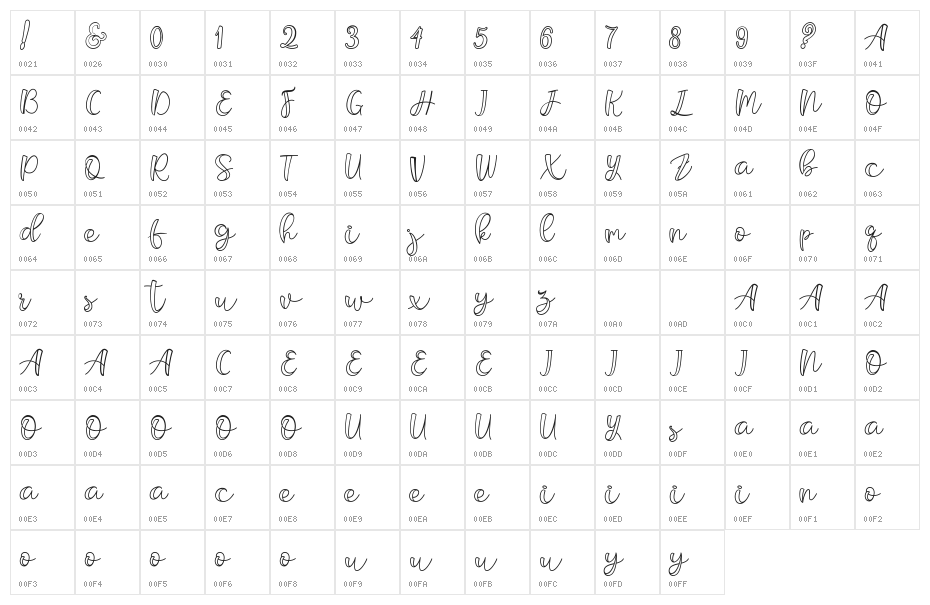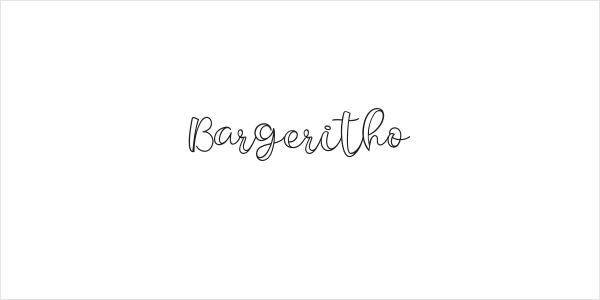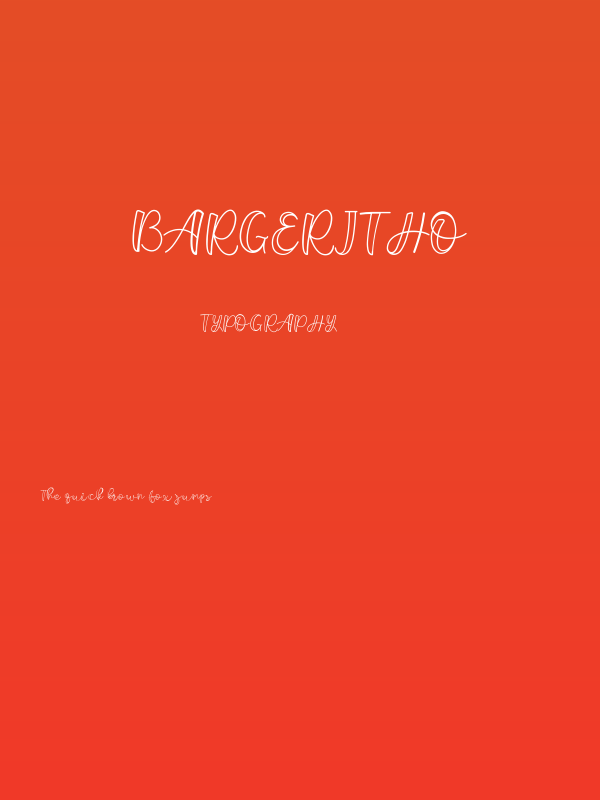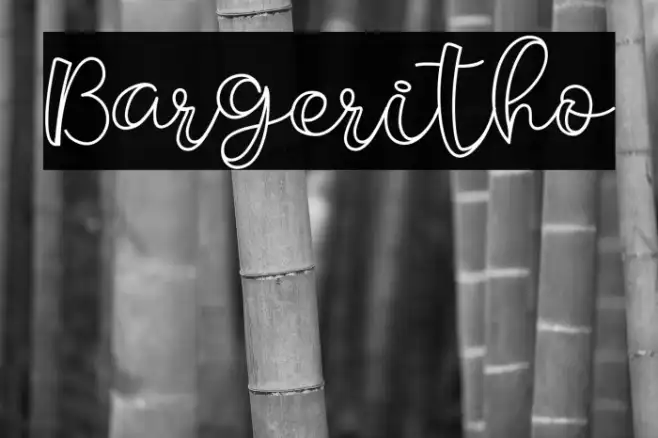
Bargeritho Font
Bargeritho Description
This font features a flowing, cursive style with a modern twist. The uppercase letters are elegantly connected, while the lowercase letters maintain a consistent, smooth flow. Each character is crafted with a sense of movement, giving the text a lively and dynamic appearance. The numbers and special characters are designed to match the overall aesthetic, ensuring a cohesive look across all elements. The strokes are moderately thick, providing a balanced contrast that enhances readability without sacrificing style. This font is perfect for projects that require a personal, handwritten touch, such as invitations, greeting cards, or branding materials.
| Use Case | Logos, Invitations, Greeting Cards |
| Proposed Projects | Ideal for invitations, greeting cards, branding, and personal projects. |